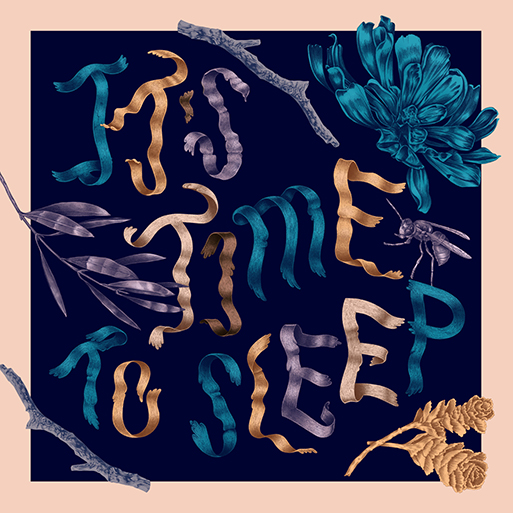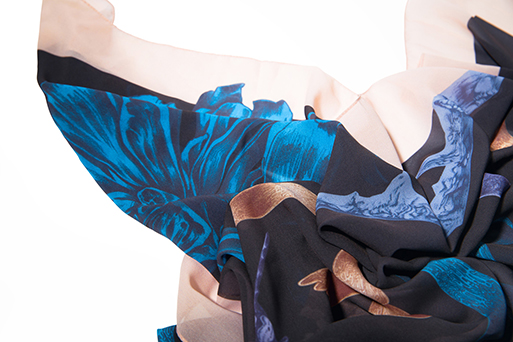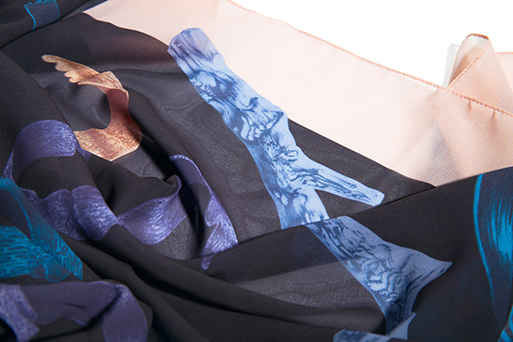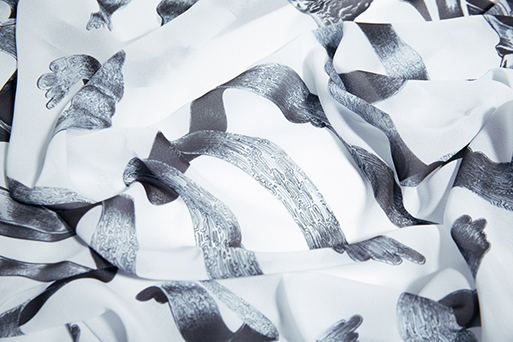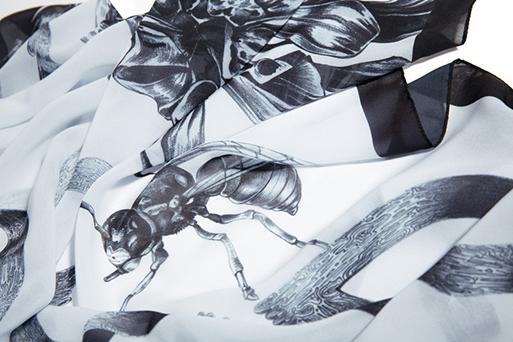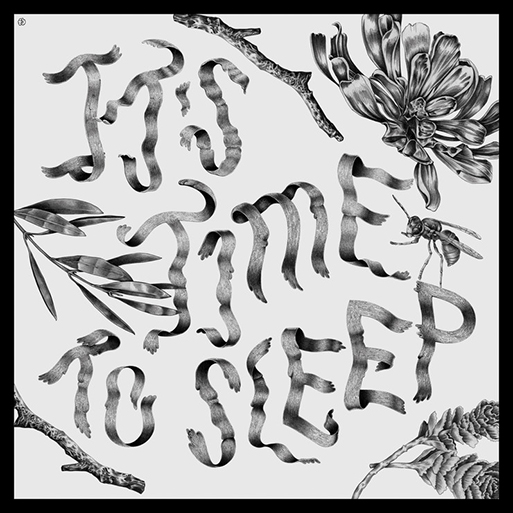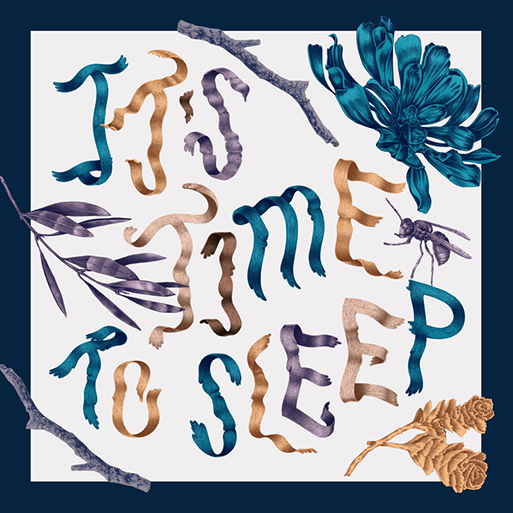
Awesome scarf design using custom typography and organic elements
This is what the graphic designer / illustrator Ayaka Ito makes in order to express her love for rich colors and handmade techniques. "It's Time To Sleep" is part of a series of 50 x 50 inch scarf designs. Inspired by the change of seasons and The Beatles' song "Norwegian Woods", the collage of organic elements and custom lettering was drawn using graphite pencil and printed on silk. View more of here exquisite work here.